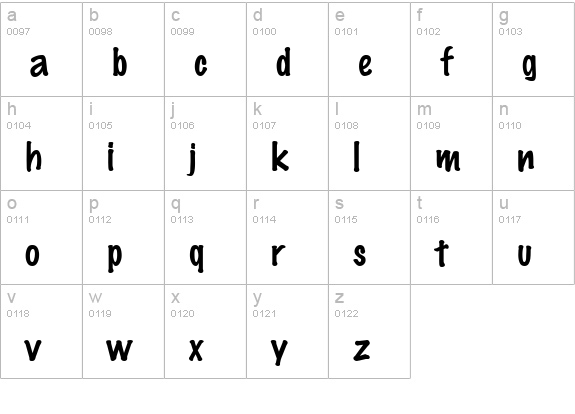
Antares Font Details
Antares font is a stunning and versatile typeface that exudes elegance and sophistication. With its sleek and modern design, Antares is perfect for a wide range of design projects, from branding to editorial to web design. Its clean lines and balanced proportions make it highly legible and easy on the eyes, ensuring that your message is always clear and impactful. What sets Antares font apart is not just its aesthetic appeal, but also its accessibility. This beautiful typeface is available for free download at FontsMarket.com, making it a valuable addition to any designer's toolkit. Whether you're a seasoned professional or a budding creative, Antares font offers endless possibilities for expressing your unique style and vision. Download Antares today and see for yourself the magic it can bring to your projects.